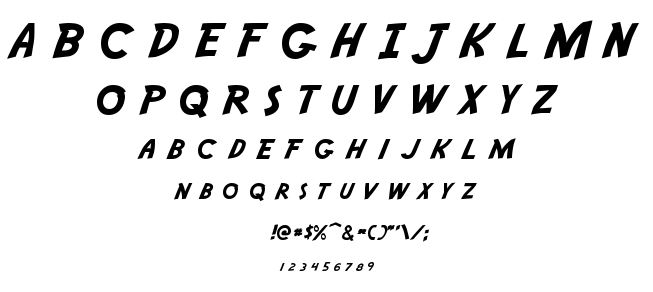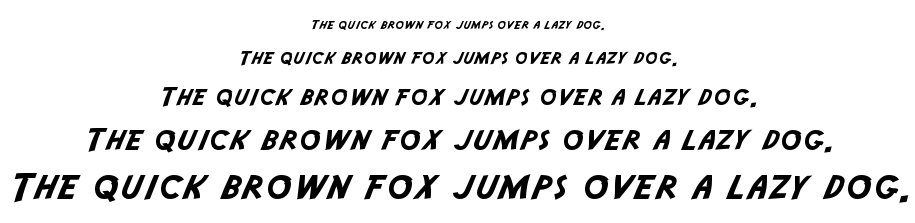
Adventure
Adventure Font
Based on the logo of the Indiana Jones franchise.
* Corrected and cleaned up character spacing
* Tweaked most punctuation marks
* Tweaked the “z” and “Z” glyphs
* Corrected the 6 and 9 glyphs
* Added internation accented glyphs
* Added common ‘smart replace’ glyphs
* Added Sterling, Franc, and Euro glyphs
* Minor glyph tweaks